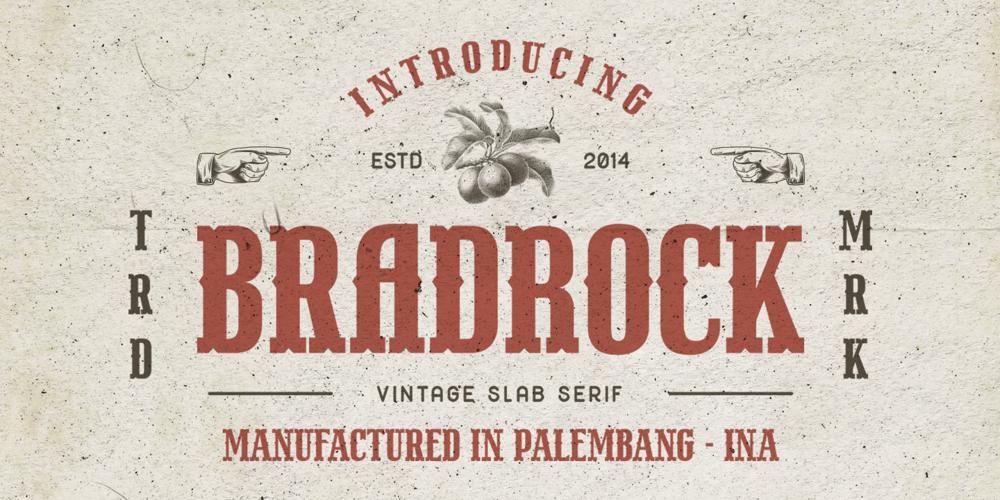
Bradrock Font Family was designed by Ahmad Ramzi Fahruddin and published by Arterfak Project. Bradrock contains 1 styles and family package options. Introducing Bradrock, a vintage slab serif typeface. Inspired by old-school cowboy design, and circus-style. Bradrock has a more decorative typeface by adding bold bifurcated serif on the letterforms. This font is a perfect choice for vintage or old-school themes.Bradrock is an all-caps font, which represented strength, confidence, and an old-school aesthetic. You can use this font for many purposes such as vintage logos, mugs, embroidery, prints, display, short text, packaging, cards, emblem, signage, and many more! Equipped with special characters to get your design more powerful.TTF & OTF in a zip file including : Uppercase Small-caps Numbers & punctuation Accented characters Stylistic alternates Stylistic set 01-03 That’s all, folks! Thank you for visiting.